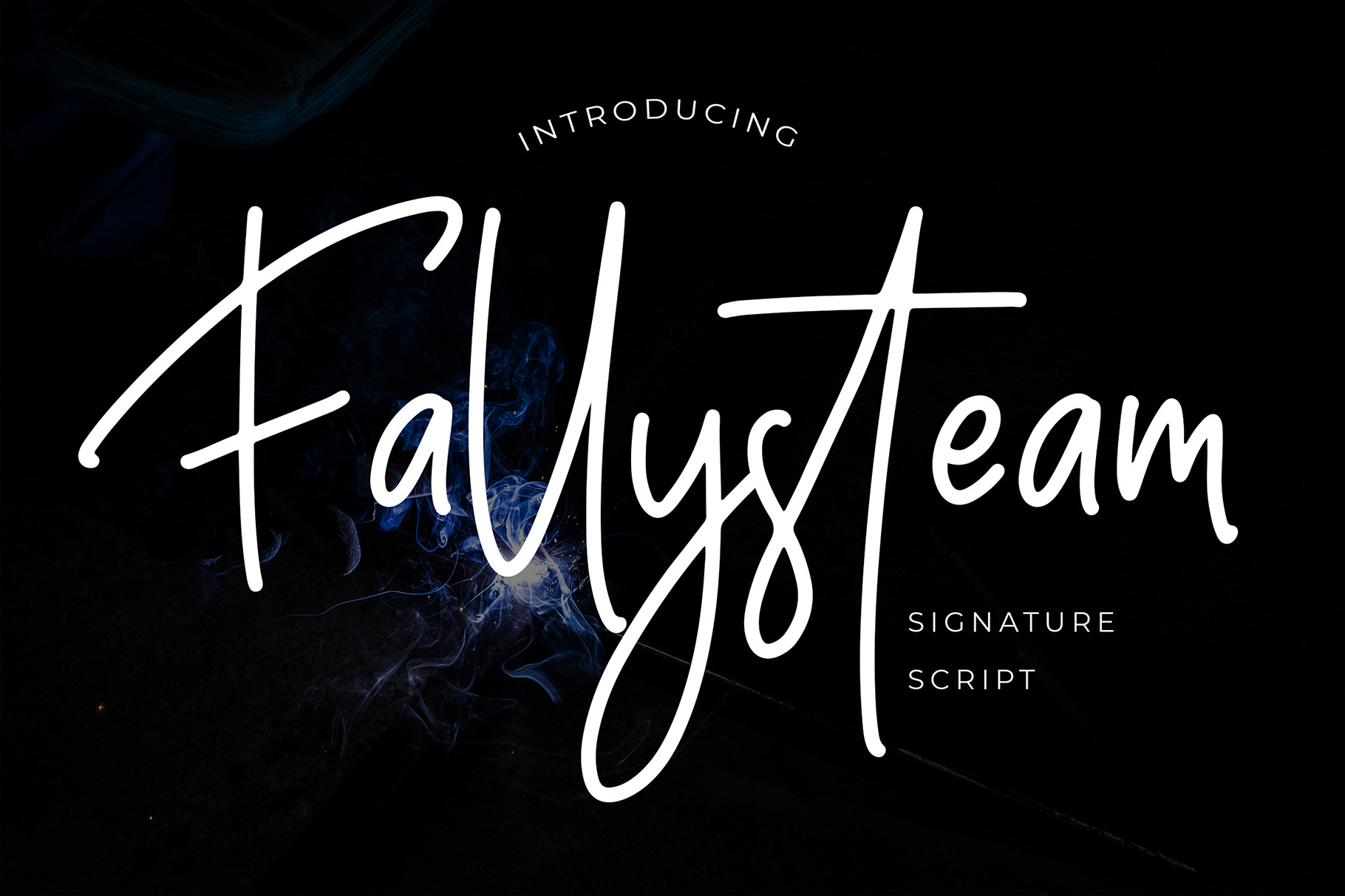
Fallysteam Signature Script Font
**Fallysteam is signature script font with monoline style. Fall in love with its elegantly playful nature!
Fallysteam is perfect for branding projects, logo, wedding designs, social media posts, advertisements, product packaging, product designs, label, photography, watermark, invitation, stationery and any projects.